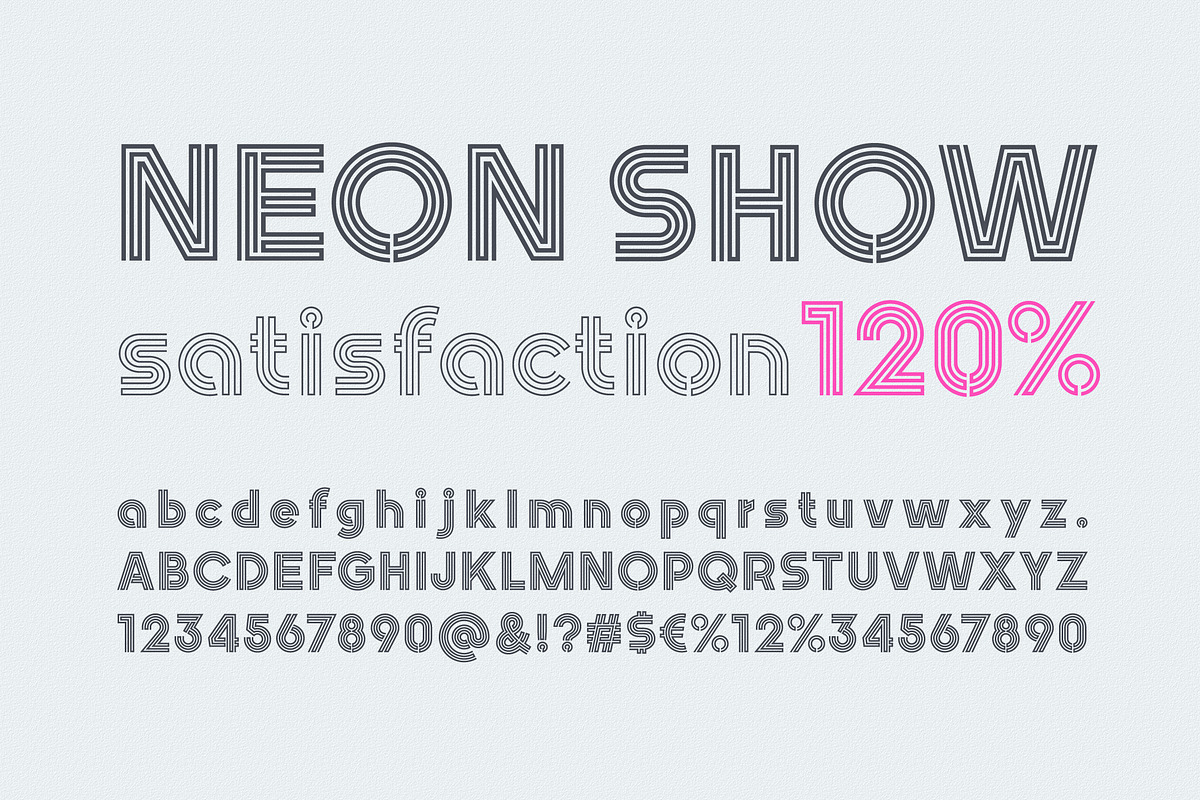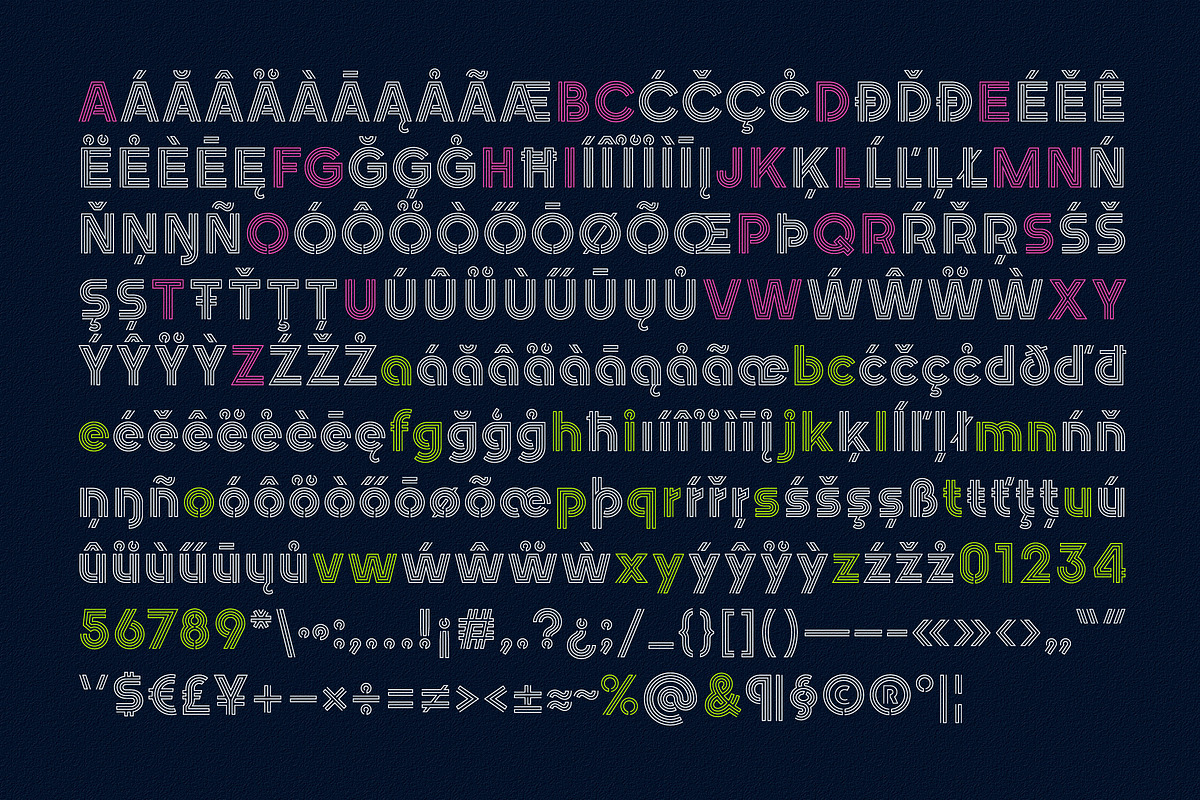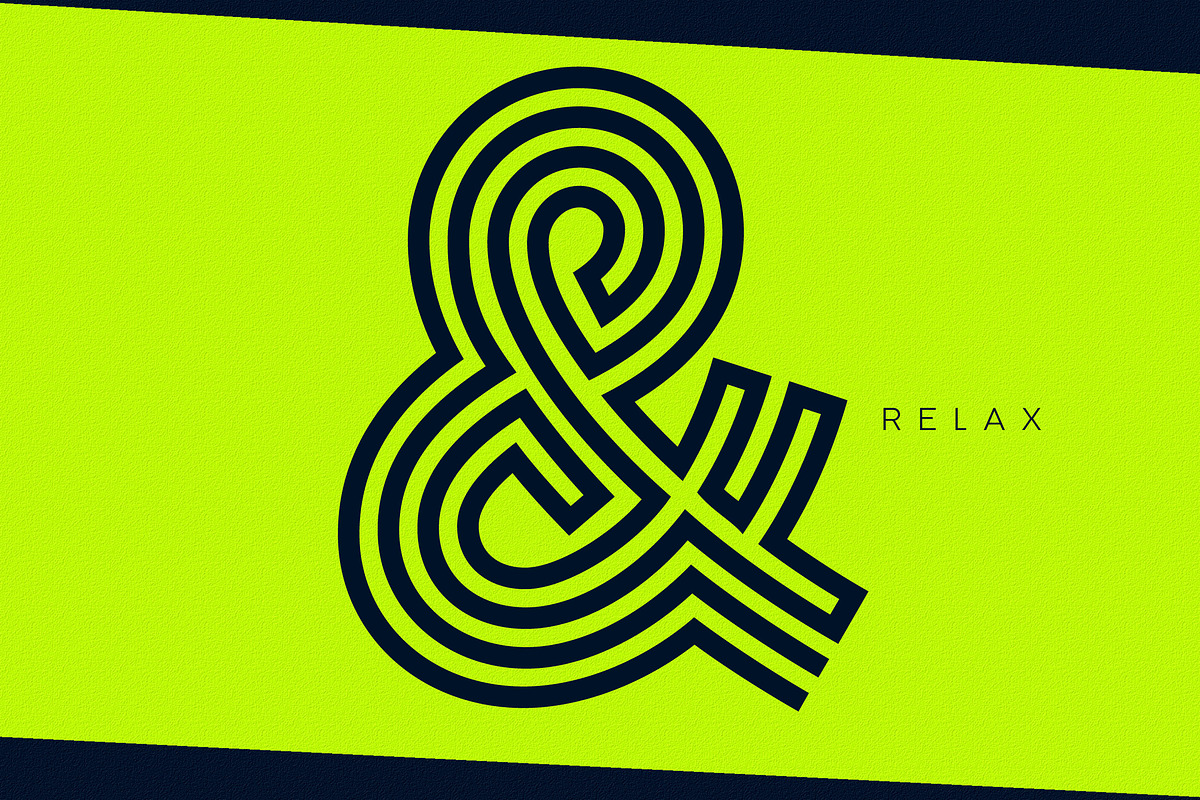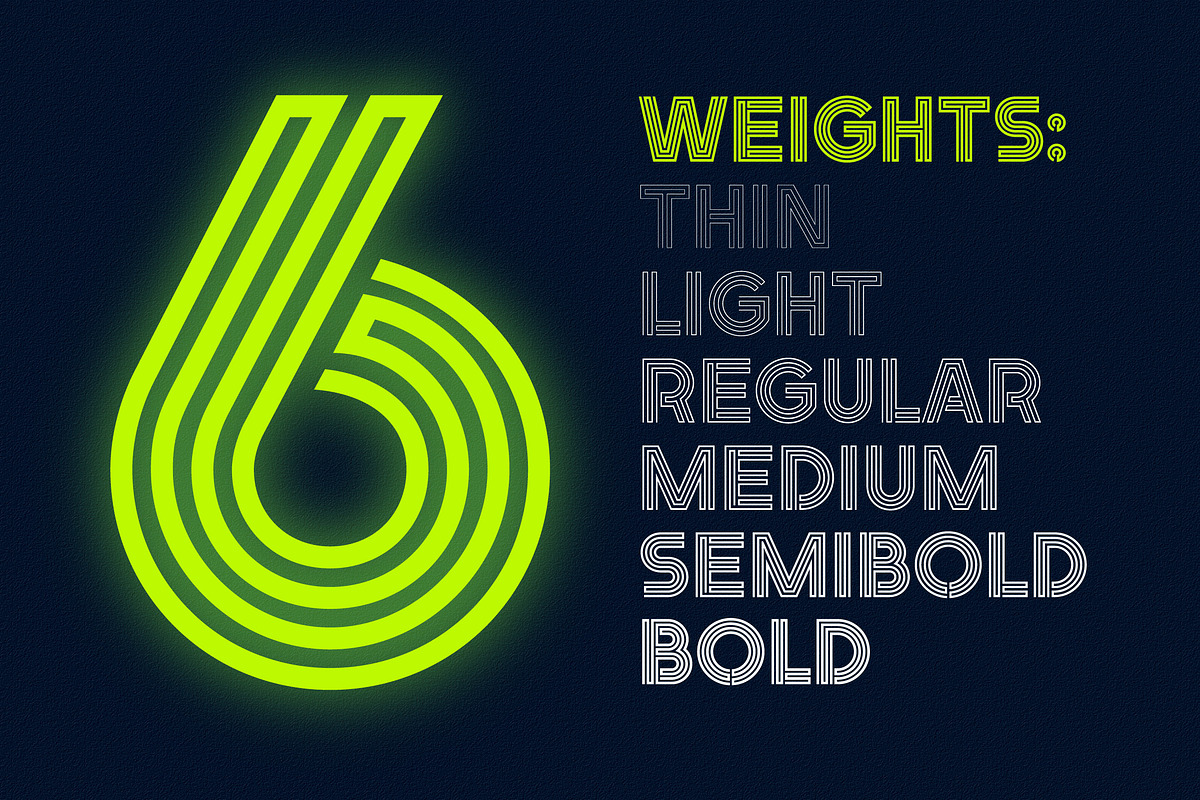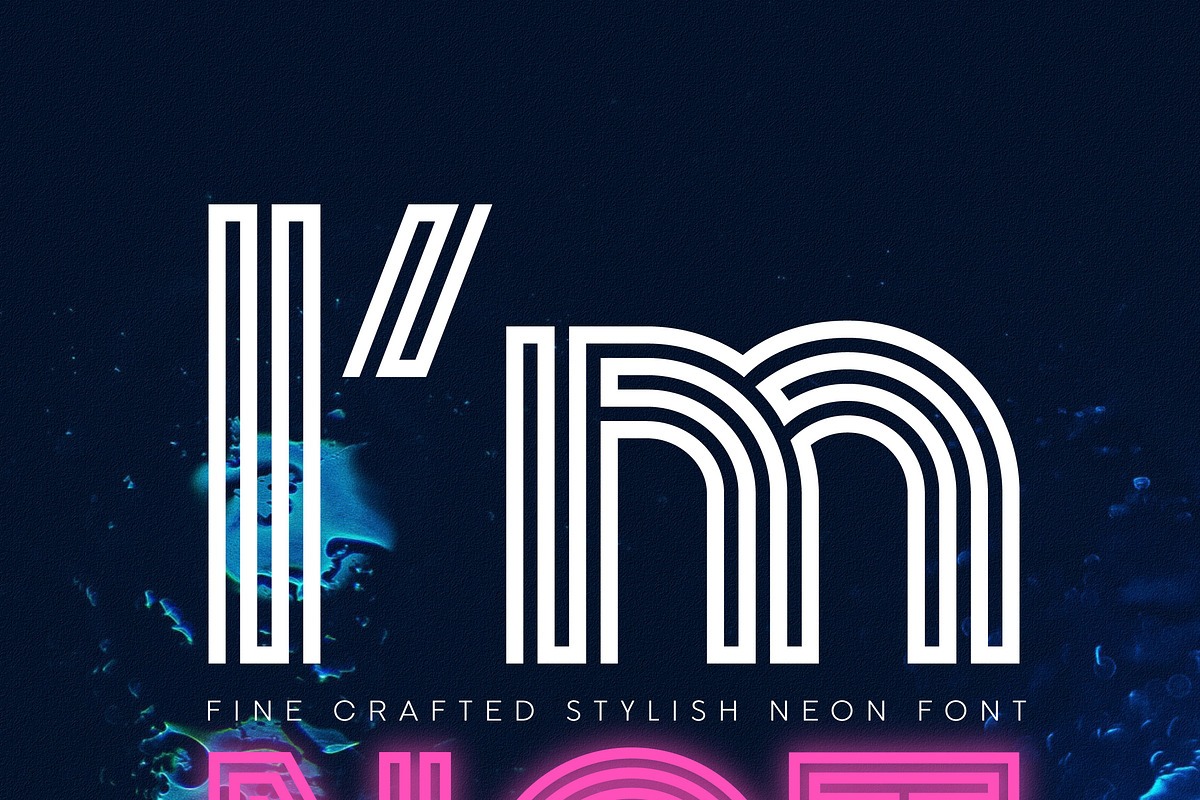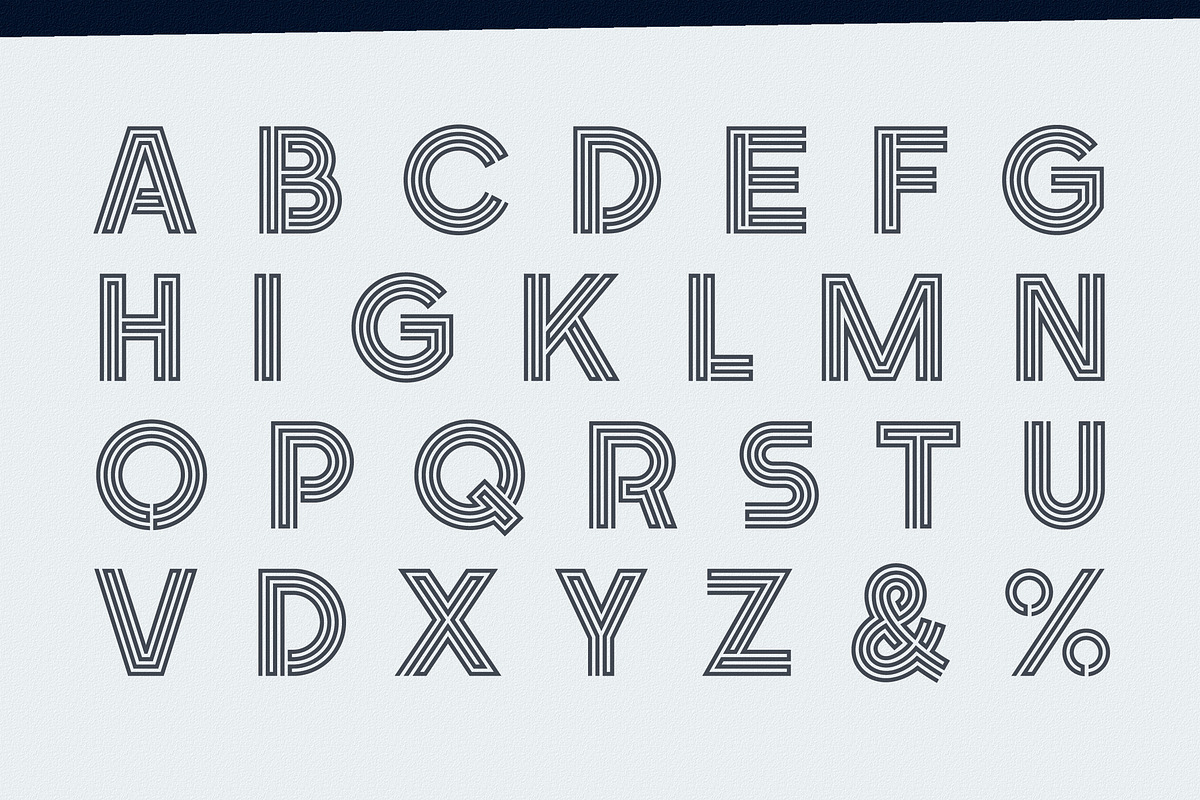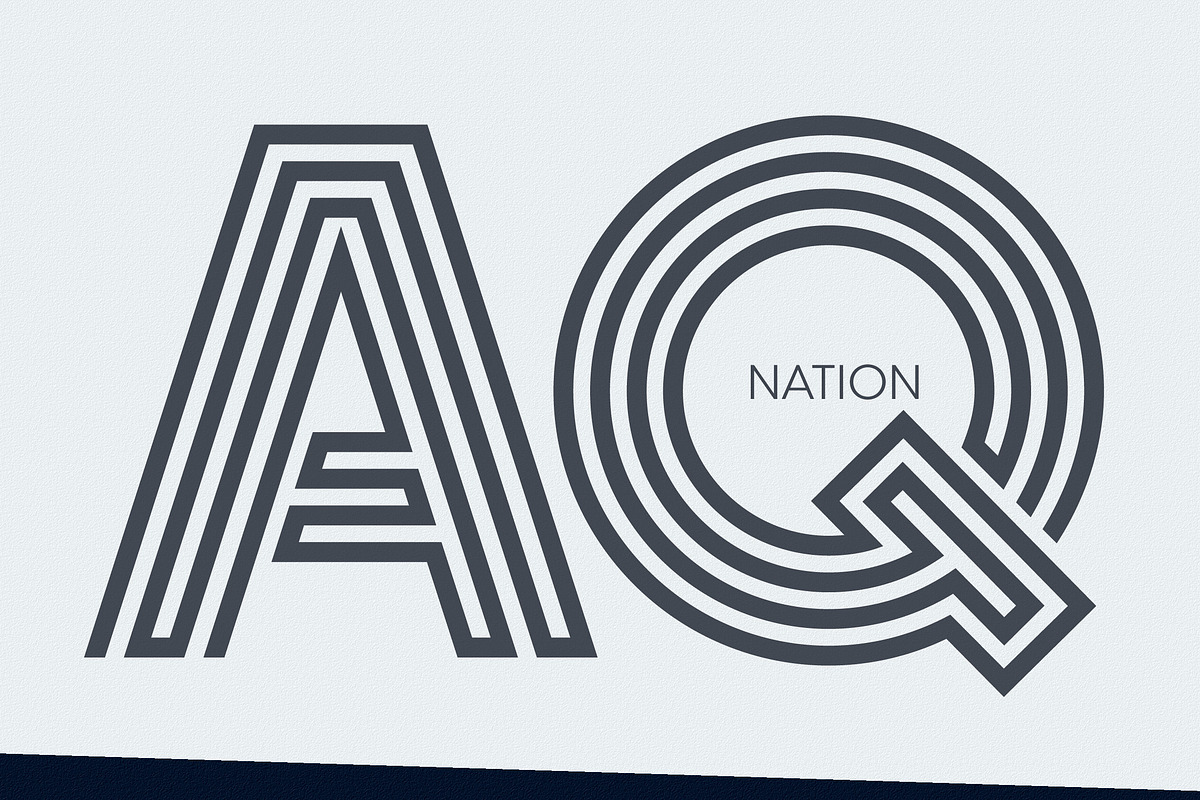
Nightlife Decorative Neon Font
This font has appeared thanks to the romanticism of the lamp signs of the twentieth century which will pass forever. However, let's will not be upset for a long time — there is not only the warmth and comfort of neon signs present in the Nightlife font, but also the energy of modern style.
Nightlife is a unique solution for a steep typography, corporate styles, headlines, in short for all that makes our world unique.
Although this font is not intended for large text arrays, all characters are perfectly balanced and can be used as any other font.
Font supports Latin and most European language characters.
- The font contains 6 weights that will help you choose the optimal size for different cases.
- Neonlife Thin
- Neonlife Light
- Neonlife Regular
- Neonlife Medium
- Neonlife Semibold
- Neonlife Bold